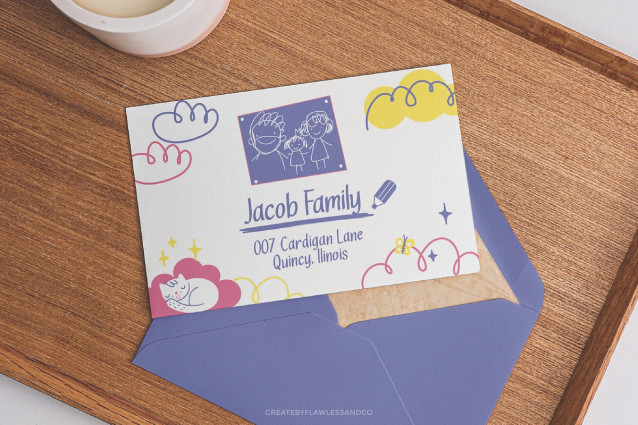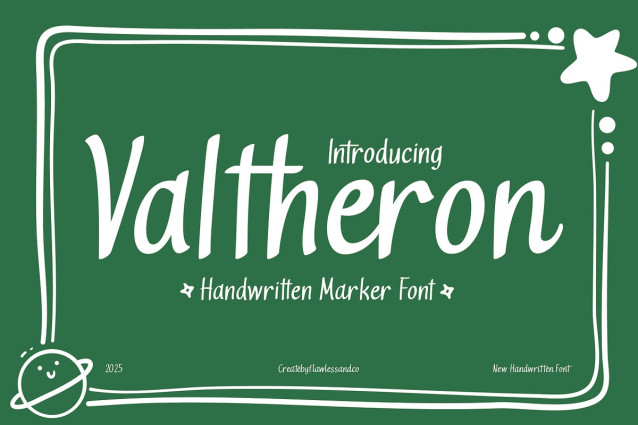
Valtheron Font
Valtheron Font is a playful and expressive handwritten marker font that captures the energy of casual doodles and authentic handwritten notes. With its slightly slanted strokes and smooth curves, Valtheron brings an approachable and cheerful personality to every project. Whether you’re creating a fun educational worksheet, a creative website header, or branding for a casual product, this font adds that human, hand-crafted charm. A Must-Have Font for Brand and Creative Content Creators Valtheron stands out with its ability to make your message feel personal and sincere — ideal for designs that aim to connect emotionally with their audience. Its balance between legibility and whimsy makes it versatile enough for both digital and print applications.